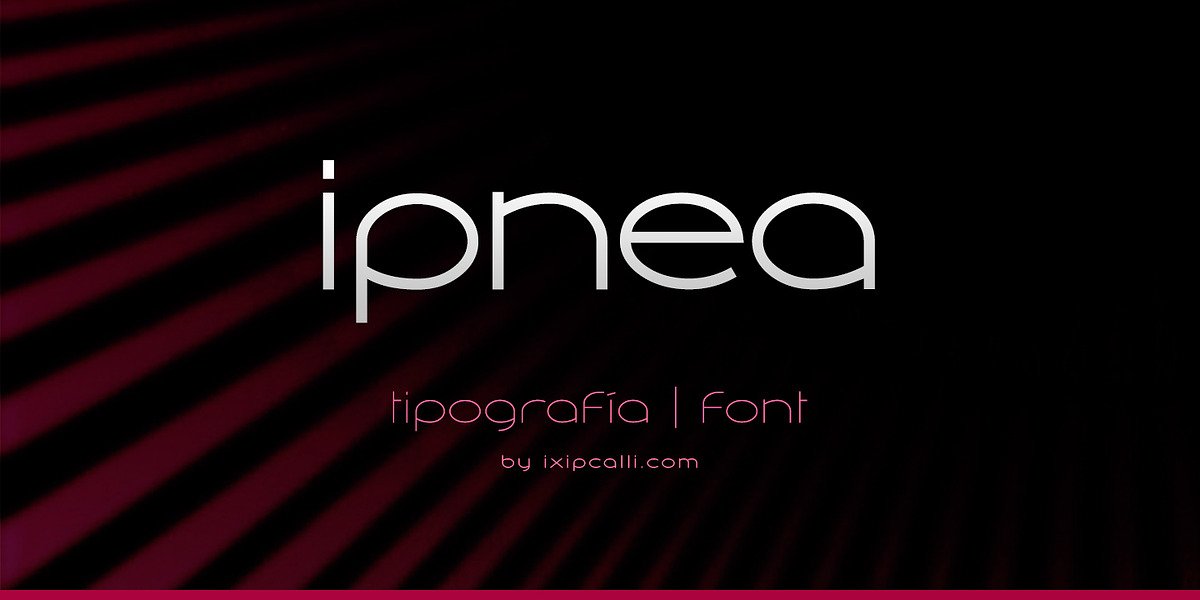
Ipnea
The Ipnea family is a simple, modern, minimalist, and light typeface. It is currently the only typeface family with an extended design. It has four weights and four italic forms. It has been used most frequently in headlines, titles, and logos.